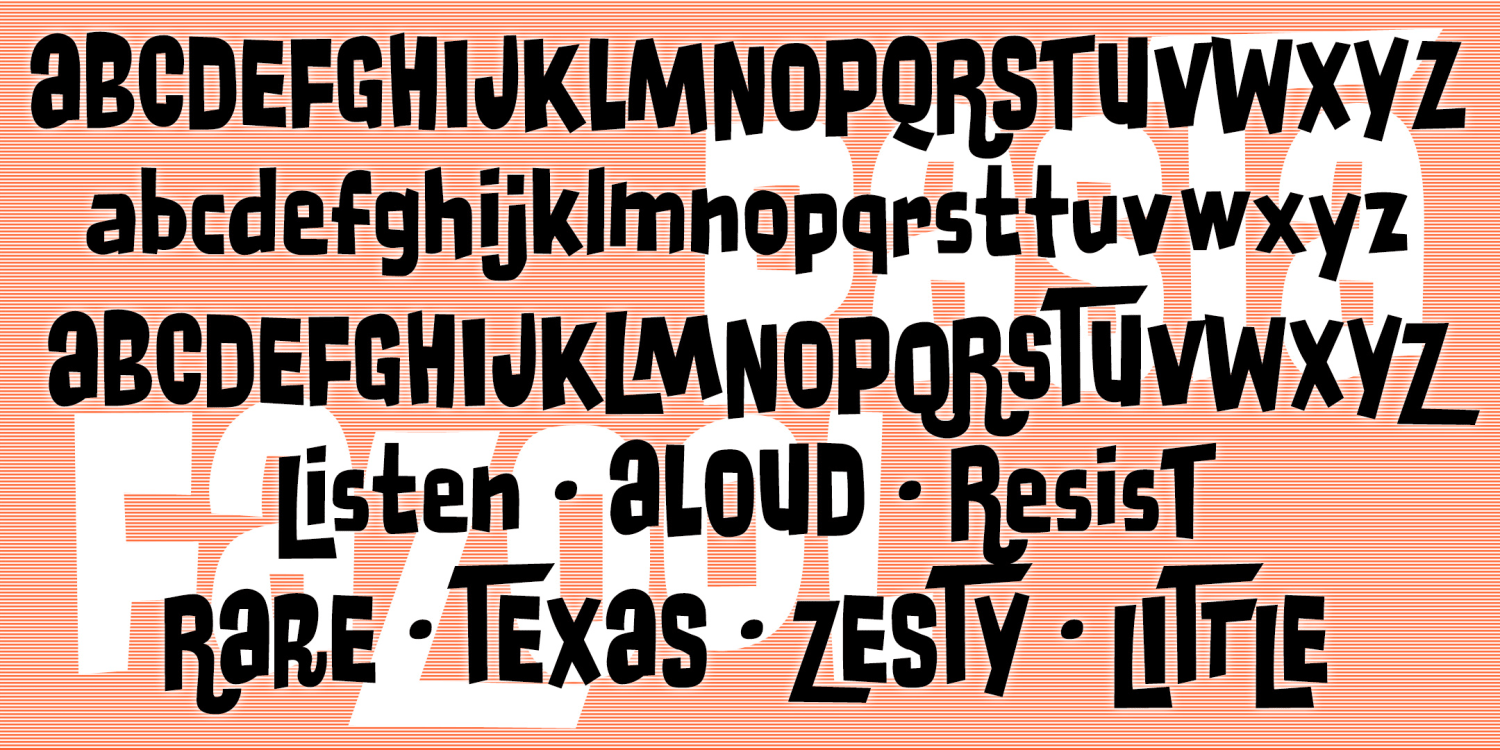
Pasta Fazool
About Pasta Fazool
PASTA FAZOOL is a fun, bold, and bouncy font. With lots of alternate characters, PASTA FAZOOL works well in all caps, all lowercase, or mixed. There are two versions of the font; PASTA FAZOOL EXTRA has even more letters that fit in and around the others.…